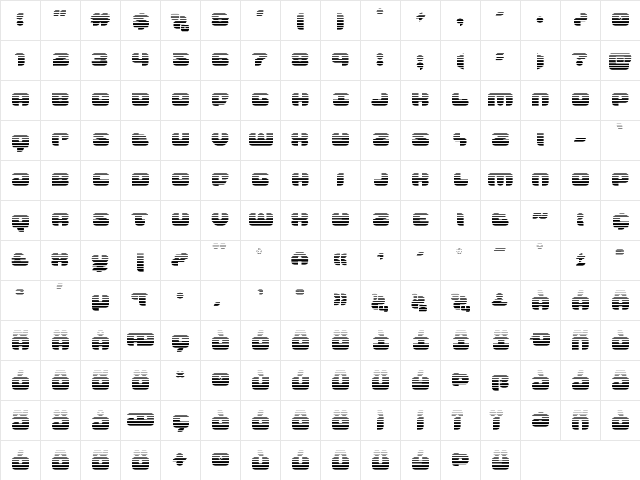
Groovy Smoothie Gradient Regular Font Preview
Groovy Smoothie Gradient Regular
Groovy Smoothie Gradient Regular Font Details
Design Context for Groovy Smoothie Gradient Typeface
Groovy Smoothie Gradient is a composed and adaptable typeface that performs quietly and consistently across a wide range of design contexts.